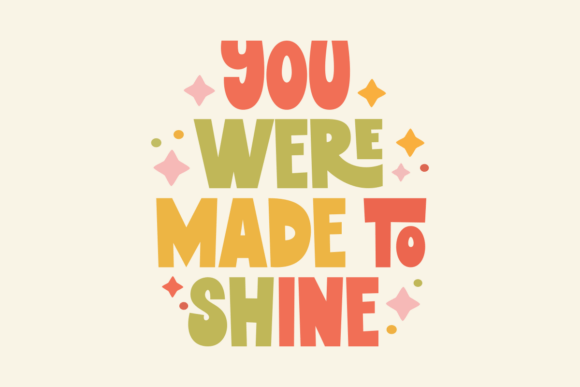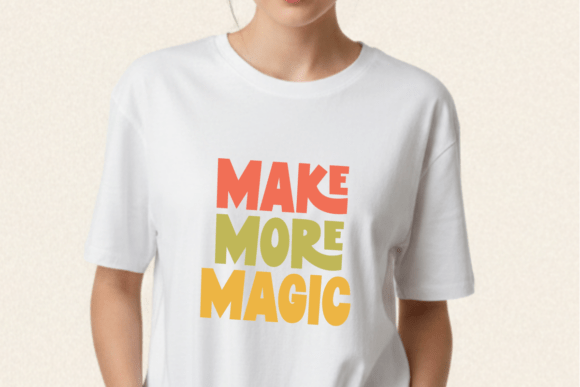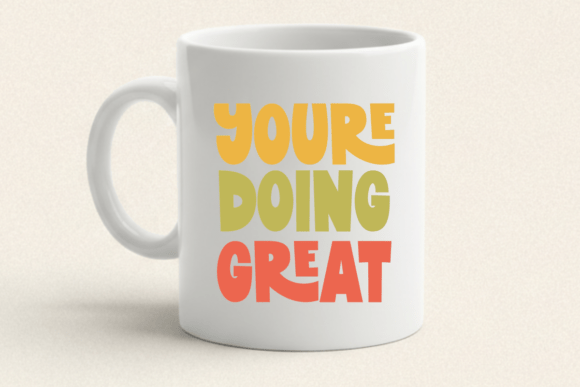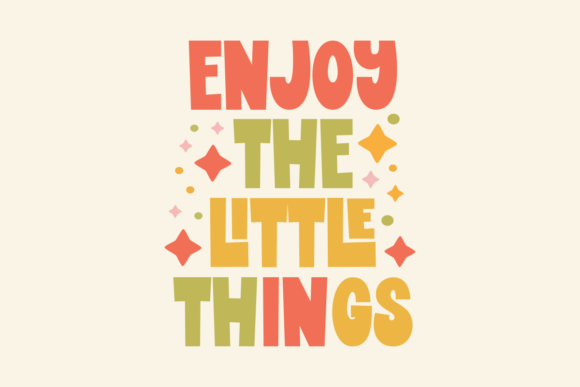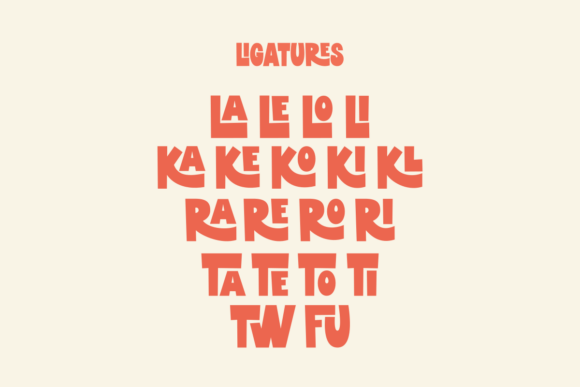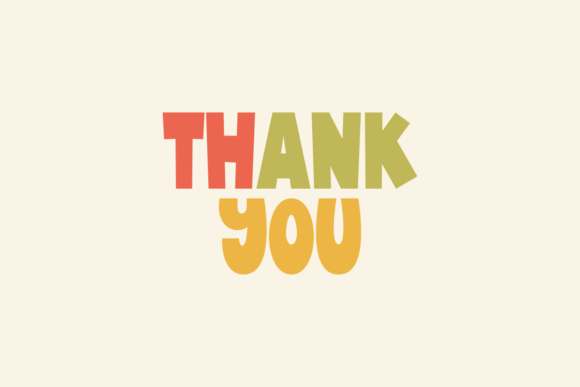
Introduction to Playful Twinkle Font Font
Fonts play a crucial role in design, and the Playful Twinkle Font font is a typeface that brings both character and versatility to any project. Whether you’re working on a branding project, a website, or a print design, the Playful Twinkle Font font offers a unique style that can elevate your work.
Add a spark of cheer to your designs with Playful Twinkle.
This font effortlessly marries a funky retro flair with a sleek modern twist This versatile font flourishes in areas like creative industry signage, quaint coffee shop branding, whimsical toy store logos, or childrenβs clothing labels.
Key Features of Playful Twinkle Font Font
Why Choose Playful Twinkle Font Font?
The Playful Twinkle Font font is more than just a typeface β it’s a design tool that helps you communicate your message with style and clarity. Its unique character set and versatile design make it suitable for a wide range of applications, from elegant invitations to bold headlines.
With its carefully crafted letterforms and balanced proportions, the Playful Twinkle Font font ensures readability and visual appeal across all mediums.
What makes Playful Twinkle Font font special?
The Playful Twinkle Font font stands out with its unique design, exceptional readability, and versatility across various design applications.